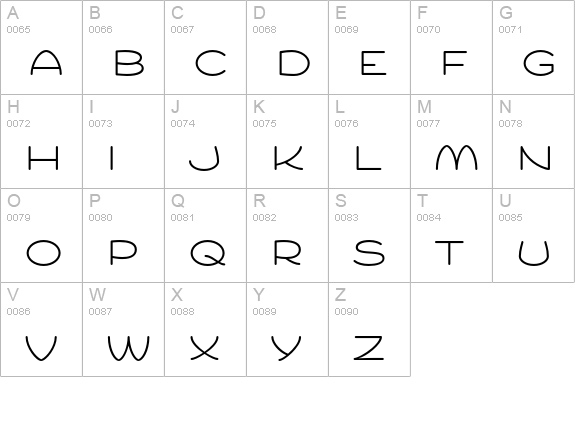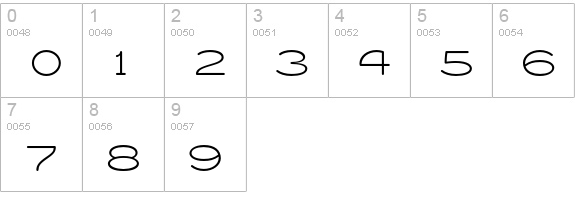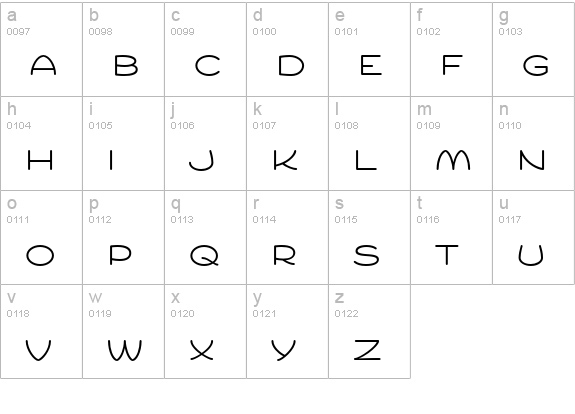
Compur-Light is a refined, elegant variant in the Compur typeface family \xE2\x80\x94 well suited to elegant body text, refined sub-headings, and luxury branding.
Compur-Light font is a versatile and sleek typeface that exudes elegance and modernity. With its clean lines and balanced proportions, this font is perfect for a wide range of design projects, from branding to editorial design. The light weight of the font gives it a delicate and sophisticated look that is sure to make your text stand out. The best part? Compur-Light font is available for free download at FontsMarket.com. This means you can easily access this high-quality font without breaking the bank. Whether you're a seasoned designer or just starting out, Compur-Light font is a fantastic addition to your font collection. Download it today and elevate your designs with this beautiful and stylish typeface.